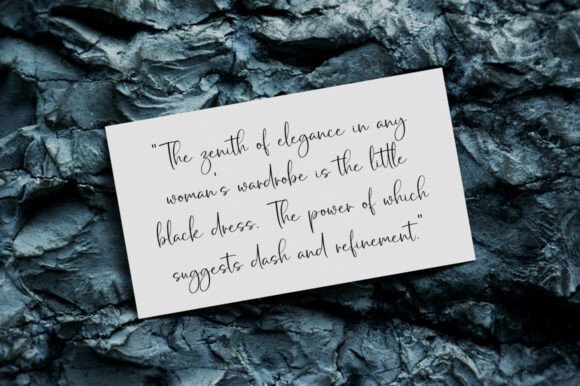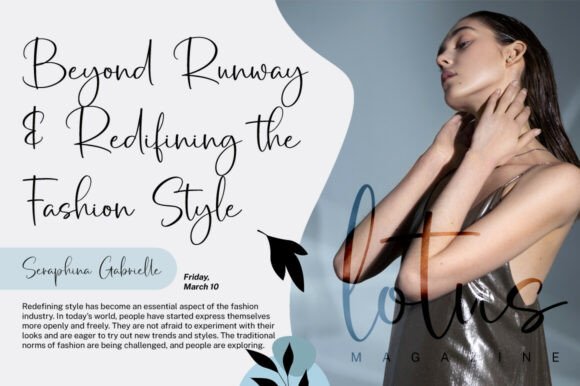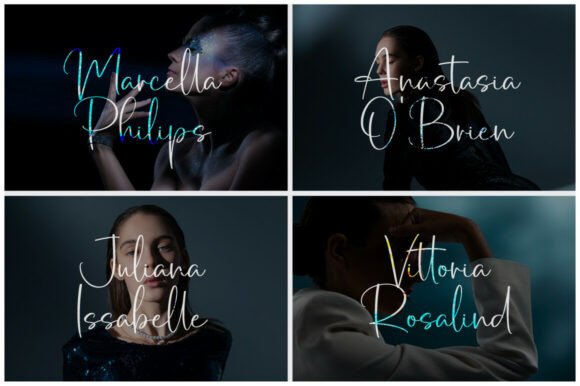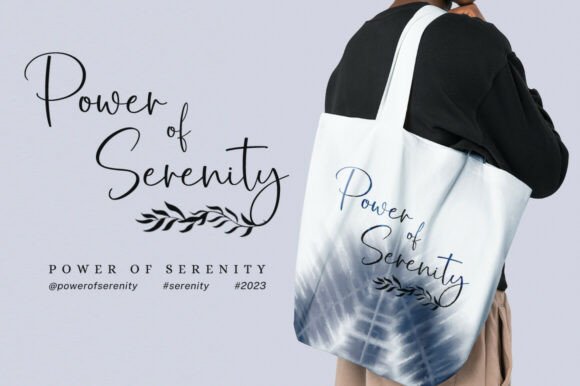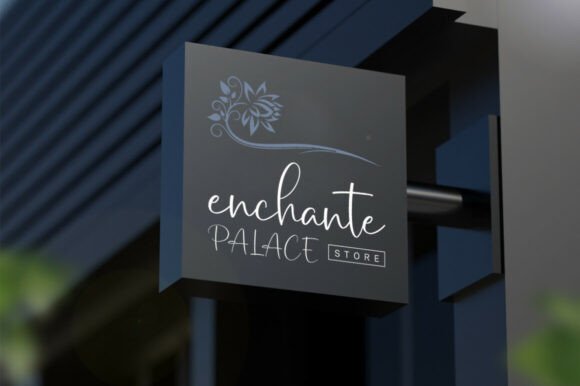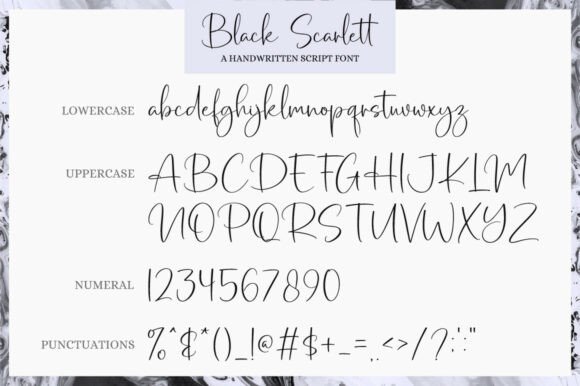
Introducing Black Scarlett Font: The Epitome of Elegance and Sophistication
In the realm of typography, few fonts manage to convey the essence of elegance and sophistication as effectively as Black Scarlett. This beautiful, well-balanced, and graceful script font has been making waves in the design community, and for good reason. Defined by its smooth curves and fluid lines, Black Scarlett is the perfect choice for fashion branding, editorial designs, and any project that demands a touch of luxury.
The Characteristics of Black Scarlett Font
Black Scarlett is a script font that exudes refinement and poise. Its smooth curves and flowing lines create a sense of movement and fluidity, making it ideal for designs that require a dynamic and elegant feel. The font’s well-balanced structure ensures that it remains legible, even at smaller sizes, making it versatile for use in a variety of applications.
One of the standout features of Black Scarlett is its ability to convey a sense of sophistication and glamour. The font’s elegant lines and refined curves evoke the world of high fashion, making it a perfect fit for branding, packaging, and editorial designs that cater to the fashion-conscious audience.
Uses of Black Scarlett Font
Black Scarlett’s versatility is one of its most significant advantages. The font can be used in a wide range of applications, including:
- Fashion Branding: Black Scarlett is an excellent choice for fashion brands looking to establish a luxurious and sophisticated image. The font’s elegant lines and refined curves make it perfect for logos, labels, and packaging.
- Editorial Designs: Black Scarlett is well-suited for editorial designs, such as magazines, newspapers, and blogs, where a touch of elegance and sophistication is desired. The font’s readability and flowing lines make it easy to read and visually appealing.
- Wedding and Event Stationery: Black Scarlett’s romantic and elegant feel makes it an excellent choice for wedding and event stationery, such as invitations, menus, and programs.
- Advertising and Marketing: The font’s sophisticated and glamorous feel makes it perfect for advertising and marketing campaigns, particularly those targeting high-end audiences.
Why Choose Black Scarlett Font?
With so many fonts available, why choose Black Scarlett? Here are a few compelling reasons:
- Unique and Distinctive: Black Scarlett’s elegant lines and refined curves make it a unique and distinctive font that sets it apart from more common script fonts.
- Highly Legible: Despite its elegant feel, Black Scarlett remains highly legible, even at smaller sizes, making it suitable for a wide range of applications.
- Versatile: Black Scarlett’s versatility makes it an excellent choice for designers and crafters who need a font that can adapt to different contexts and applications.
Tips for Using Black Scarlett Font
To get the most out of Black Scarlett, here are a few tips:
- Use it as a Headline Font: Black Scarlett’s elegant feel makes it perfect for use as a headline font, where it can add a touch of sophistication and glamour to your design.
- Pair it with a Sans-Serif Font: For body text, consider pairing Black Scarlett with a sans-serif font to create a striking contrast between the two.
- Experiment with Colors: Black Scarlett looks stunning in a range of colors, from metallic gold and silver to rich jewel tones. Experiment with different colors to find the perfect fit for your design.
In conclusion, Black Scarlett is a beautiful, well-balanced, and graceful script font that is sure to elevate your designs to new heights. Its smooth curves, elegant lines, and refined feel make it perfect for fashion branding, editorial designs, and any project that demands a touch of luxury. With its versatility, legibility, and unique character, Black Scarlett is an excellent addition to any designer’s toolkit.